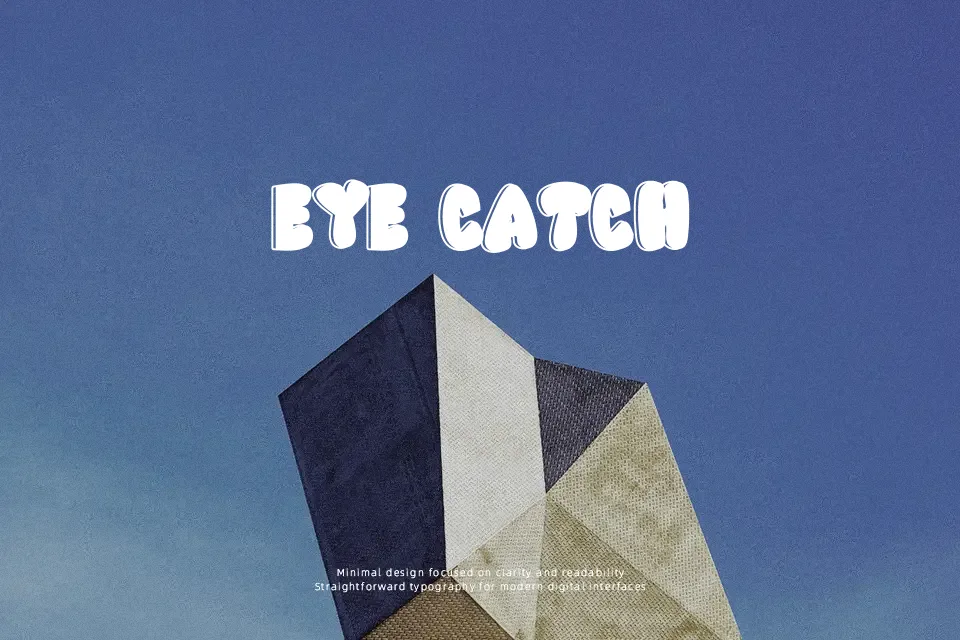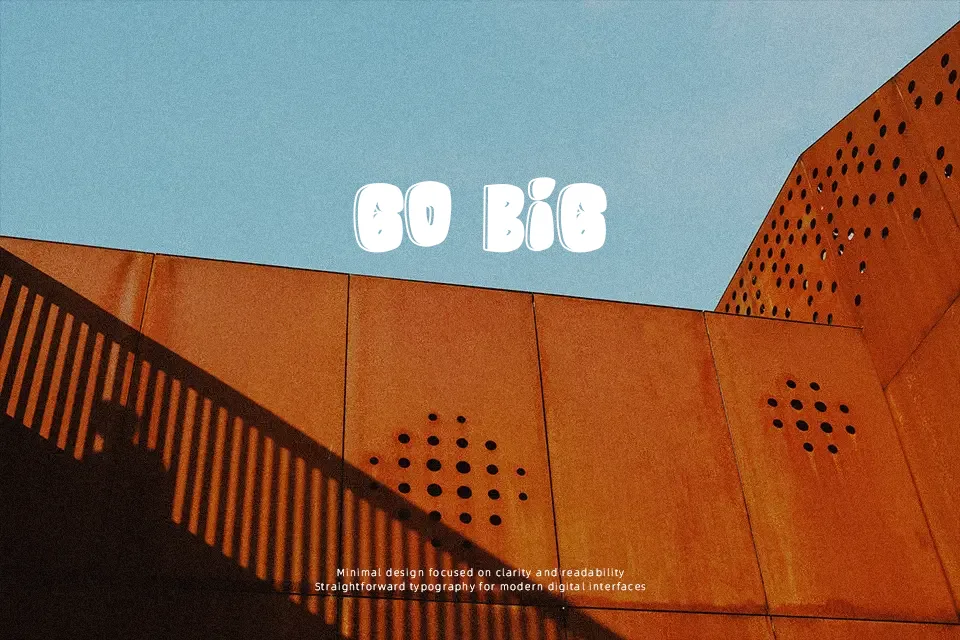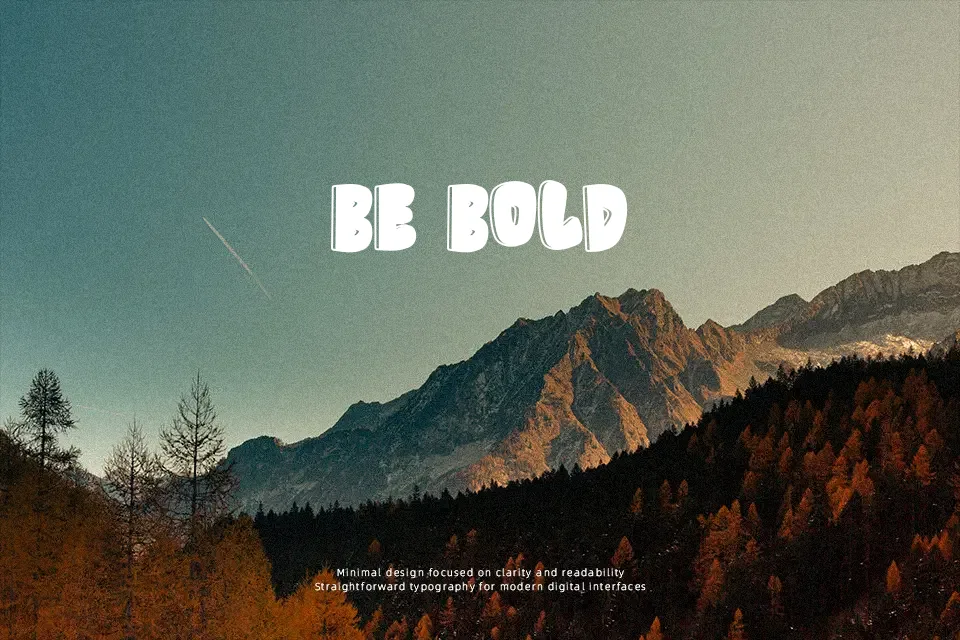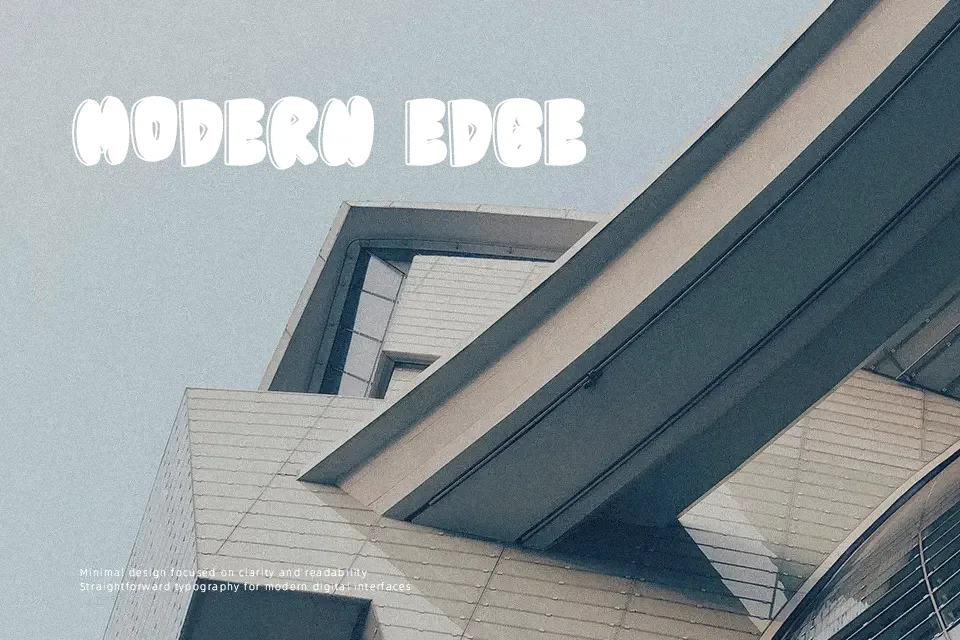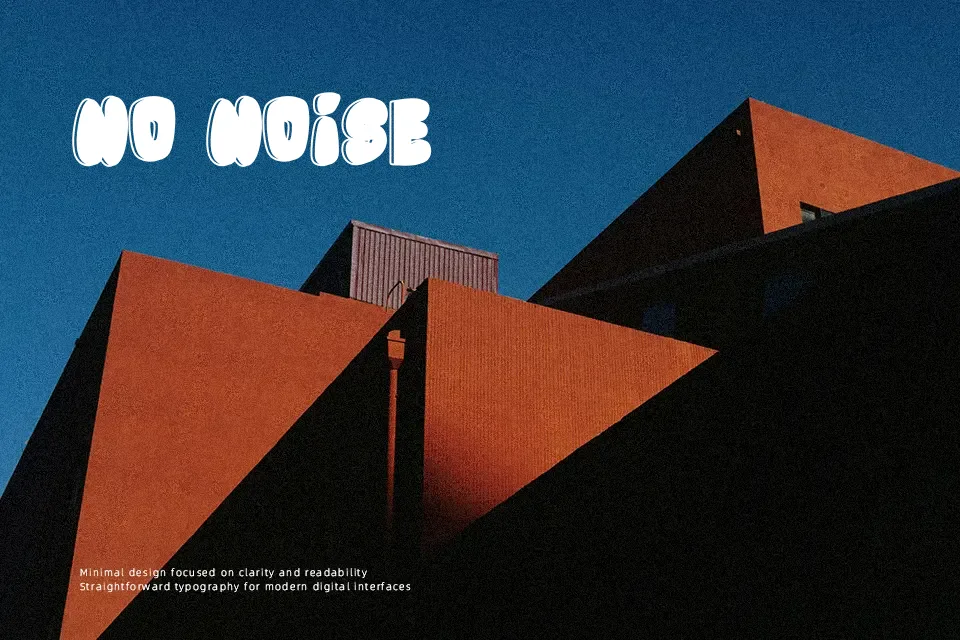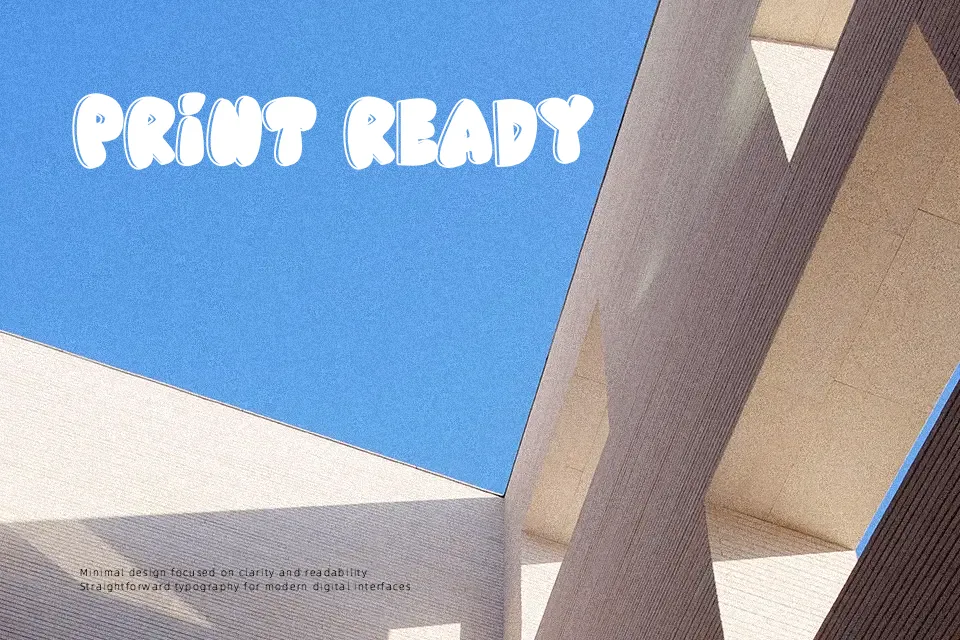
Valentina Font
Designed by Bilqis Studio
Valentina Font features heavy rounded strokes, animated contours, and a casual rhythmic baseline suited for lighthearted design themes. Generous internal counters and smooth curves maintain letter recognition across large headings, while the informal silhouette provides an approachable personality. Character spacing remains moderately compact to keep headline settings visually cohesive, though subtle variations in bounce lend an expressive feel to titles. The design performs effectively in short phrases, youth apparel graphics, and celebration banners. However, the exaggerated informal proportions and thick outlines reduce comfort in extended text settings, making the typeface far less practical for dense editorial layouts.
Best For: children’s book titles, animated show titles, birthday party invitations, merchandise graphics
Not Ideal For: long body text, corporate annual reports, small user interface labels, technical documentation